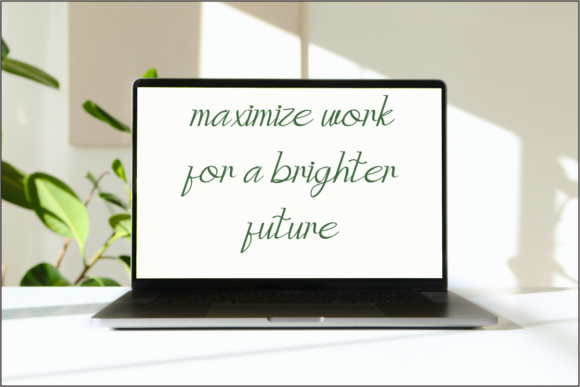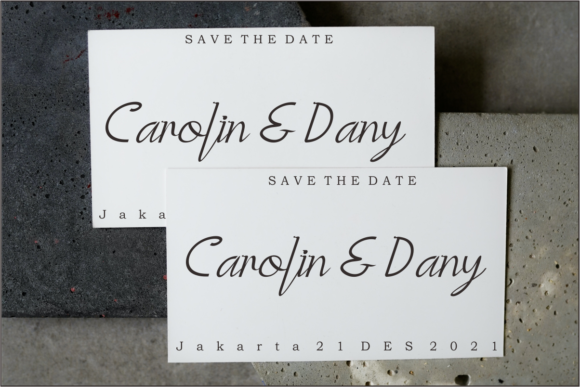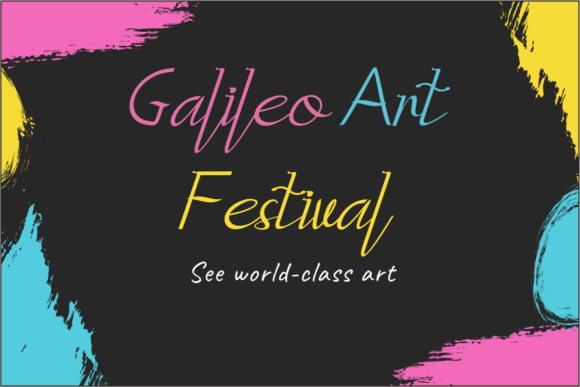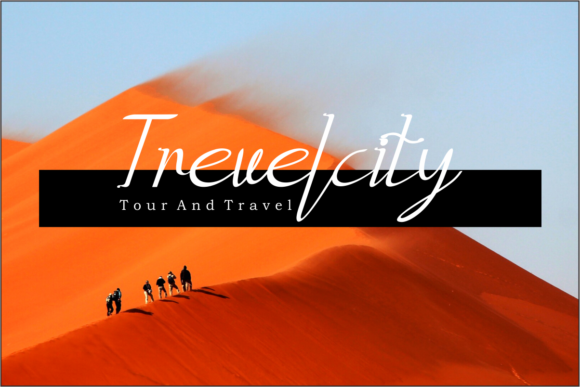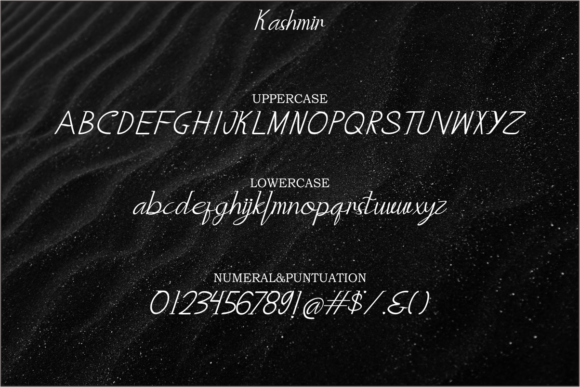
Introduction to Kashmir Font
Enter the Kashmir Font, a stunning script font that’s taking the design world by storm. This beautiful font is a game-changer for designers, offering a high-quality, transparent background that makes it perfect for any creative project. With its varying baseline, smooth lines, gorgeous glyphs, and stunning alternates, the Kashmir Font is a must-have for any designer looking to add a touch of elegance to their work.
- Designed with a unique aesthetic, making it an excellent choice for designers looking to add a touch of elegance to their work.
Honest Review: Kashmir Font
I recently had the chance to work with the Kashmir Font, and I must say, it’s been a game-changer for my creative projects. This font has everything I need to take my designs to the next level.
Here are some of my favorite features:
- Unique and elegant design
- High-resolution images for crisp text
- Works well for headings and body text
- Perfect for projects that require a touch of sophistication
Limitations: ⚠️ While the Kashmir Font is incredibly versatile, it may not be suitable for projects that require a bold, sans-serif font. Additionally, some users may find the font a bit too ornate for everyday use.
Overall, I’m thoroughly impressed with the Kashmir Font. It’s a valuable addition to any designer’s toolkit and a must-have for any serious design project. Whether you’re working on a free download or a high-end commercial project, this font is sure to deliver high-quality results every time.
Kashmir Font
The Kashmir Font is a high-quality design resource that can elevate any creative project. It offers a unique and elegant look that can be used in a variety of applications.
The Kashmir Font is commonly used in:
Business cards and brochures
Social media graphics and presentations
Q: Does the Kashmir Font have a transparent background, making it suitable for use on images and graphics?
Yes, the Kashmir Font has a transparent background, making it suitable for use on images and graphics. This allows designers to easily layer the font over other design elements, creating a seamless and professional-looking design.